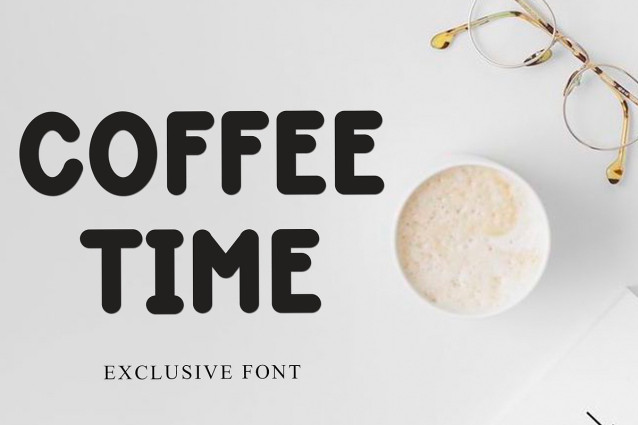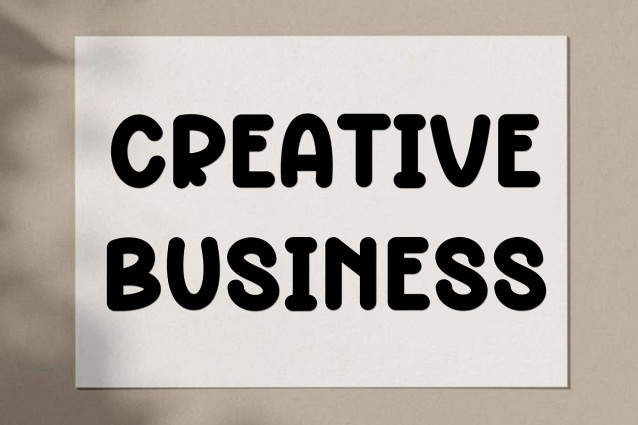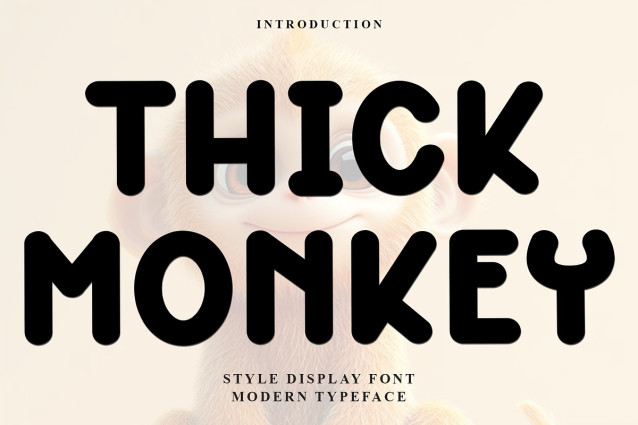
Thick Monkey Font
Thick Monkey Font is a beautiful and eye-catching font designed with a soft, unique touch. Its distinctive strokes give it a special character, making it meaningful and versatile for future use. With various characters, it’s perfect for design projects, crafts, and other creative works.